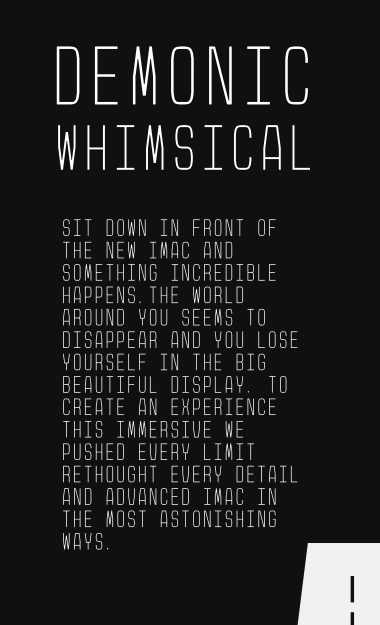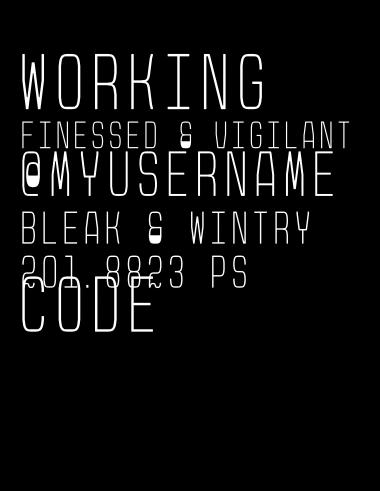
Great work! Love the curly, decorative Q. LC?
Thank you, winty5. Regarding lowercase -- not yet. ;-)
I like how its sort of modern and sort of old fashioned. And by "not yet" do you mean your working on it?
Thanks again! and by "not yet" I meant I'm considering it. We'll see.
Ok. I might clone this to make a serif version.
Oh, I was thinking of that too, but you can still do it!
Maybe we can both do different versions like we did on QQQQQ?
This might seem like a normal monospaced font, but it's not. The angle in the A and V seems perfect, the curve of the rounded parts of letters like C, the tail of the Q combines the loop and the plain tail, perfect
Nice work. I'm waiting for the entire set!
Thanks elmo — I appreciate it. More glyphs coming soon.
Solid and professional! Love the Q.
Maybe the crossbar on A could be a little higher? Just a thought, works as it is too.
Nice work - I realise that you have kept the characters the same width - but this does mean that the M and W look too narrow (this stands out in the sample). Still, 10/10 for the overall design.
To tell you the truth Yautja, I like A crossbars so low that I had to convince myself to raise it! :-) So I think I will keep it as is — but thanks for the nice feedback!
@p2pnut // I was wondering when someone would bring that up ;-) This design actually started with the M and W; however, they were even more narrow before as you can see in the sketches! I was experimenting with purposefully clogging up those corners to make it seem more like an old monospaced font. Anyway, thanks for that 10!
Really good, but the name sounds unconvincing. Can you try reconsidering?
Like its new name, Legimono sounds cool. Sorry if i'm getting anoying with my repetitive comments.
Wow, you guys actually do sketches! Cool :)
Will there be lowercase and numbers?
Excellent work, looking forward to more glyphs. 10/10
Thanks four and architaraz. More glyphs coming soon — possibly lowercase. :-)
Love these "&" and "@". You should develop your fonts more often!
Those numbers are beautiful oAo
YES!!! LC!!!
My favorite glyphs are Q,2,m,i,@,$,&.